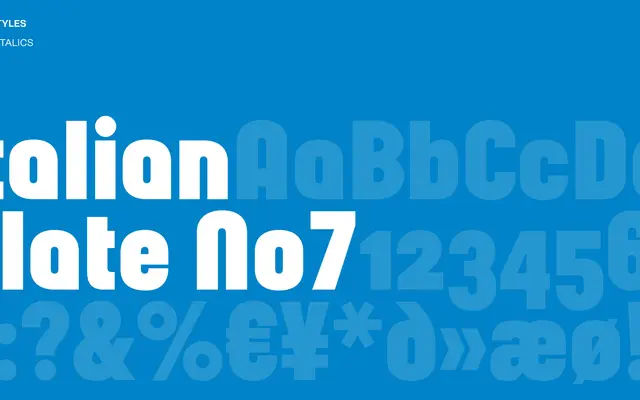
Italian Plate No7
A European grotesque sans from Playtype with restrained, rational letterforms suited to editorial and identity work.
Italian Plate No7 sits within the tradition of early twentieth-century European grotesque sans-serifs, offering clean, unadorned letterforms with a measured formality. The page content is sparse, leaving much of the typeface's range and full character set undocumented from the scraped material. Its name suggests a numbered series, implying a broader family of related grotesque cuts under the Italian Plate umbrella.
Italian Plate No7 follows the visual tradition of early twentieth-century European grotesque sans-serifs, characterised by rational letterforms and restrained detailing consistent with the grotesque subcategory.